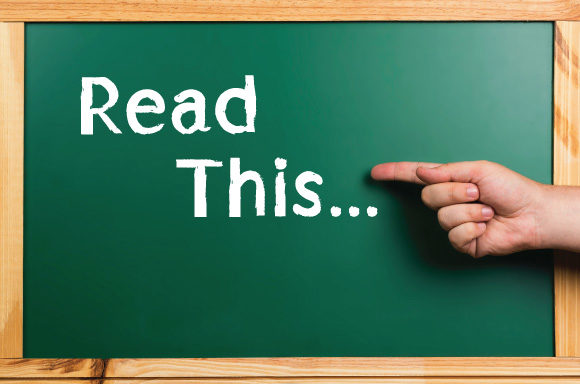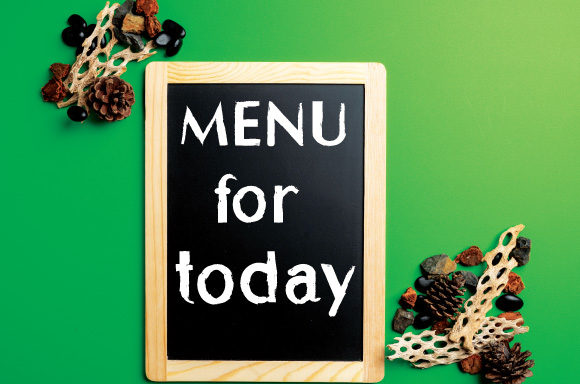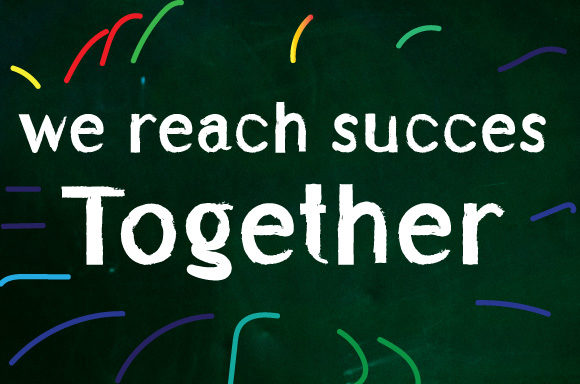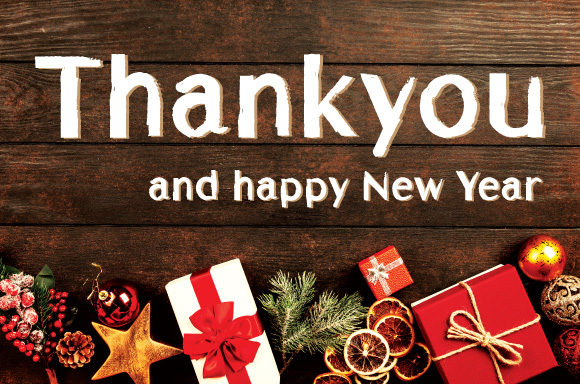
The Power of Chalk Letter Font: Elevate Your Creations
Have you ever been working on a project and felt like something was missing, like a spark to bring it all together? That’s where the magic of the right font comes in. Imagine a bold, eye-catching display font that adds a touch of personality to your designs, making them stand out from the crowd. This is where the Chalk Letter Font shines, adding a fun and playful twist to any creation.
As a versatile display font, Chalk Letter Font is perfect for designers looking to add some visual flair to their work. Whether you’re working on a social media campaign, a poster, or even a wedding invitation, this font has the potential to elevate your design and make it truly unforgettable. Its bold and playful nature makes it an incredibly valuable asset to any designer’s library, and we can’t wait to dive deeper into what makes it so special.
Key Features of Chalk Letter Font
- Unique Characteristics: Chalk Letter Font features a distressed, chalkboard-inspired design with a rough, textured appearance. The font includes a range of ligatures and swashes to add a touch of elegance and sophistication.
- Font Styles: Chalk Letter Font includes 3 different font styles: Regular, Italic, and Bold. Each style is carefully crafted to maintain the unique texture and character of the font.
Chalk Letter Font Review
Overall, I think Chalk Letter Font is a solid choice for casual, handwritten typography. It works well for titles, headings, and short blocks of text where a personal touch is desired. ✨ The font’s imperfections and variability in letterforms give it a natural, hand-drawn feel that’s perfect for creative projects.
One of the things I appreciate about Chalk Letter Font is its versatility. It comes in a range of weights and styles, making it easy to find the right fit for your project. ✨ Additionally, the font is highly legible, even at smaller font sizes.
- ⚠️ Chalk Letter Font may not be the best choice for long blocks of text, as it can be difficult to read at length. The font’s irregularities can make it feel fatiguing to the eye.
- ⚠️ The font may not be suitable for formal or professional projects, as it has a more casual, informal feel.
- ⚠️ Some users may find the font’s variability in letterforms to be inconsistent or annoying.
Overall, I think Chalk Letter Font is a great choice for creative projects where a personal touch is desired. While it may have some limitations, its unique feel and versatility make it a solid addition to any designer’s toolkit.
Chalk Letter Font: A Practical Application Guide
To get the most out of the Chalk Letter font, use it for creative and informal designs, such as posters, flyers, and social media graphics. This font is ideal for adding a playful and whimsical touch to your designs. You can also use it for quotes, phrases, and titles to add a distressed and vintage look.